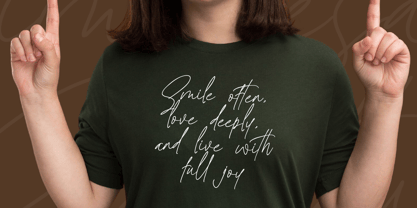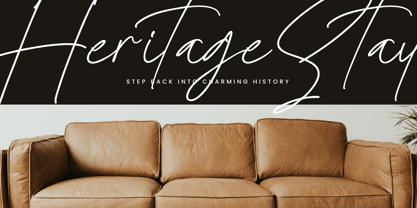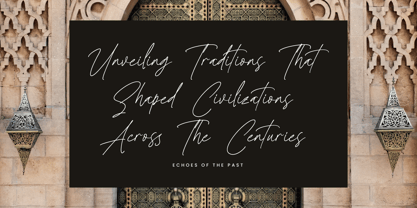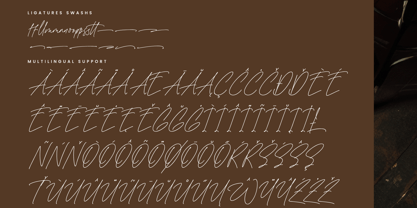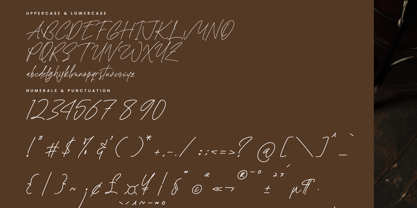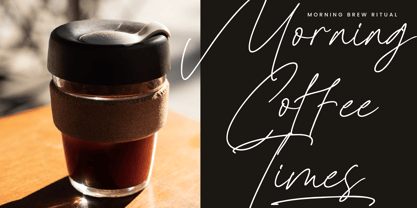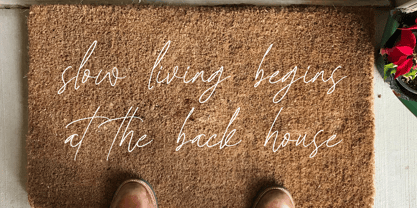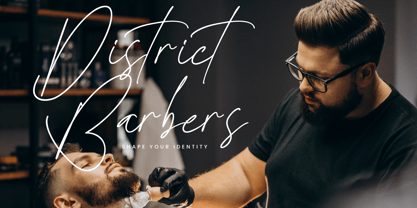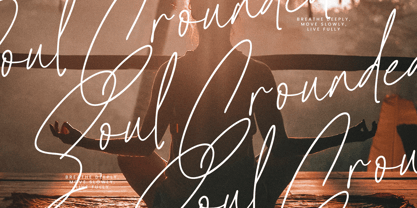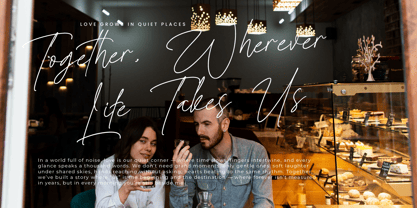
Kimothyes Sigmaboy
by Integritype
The Kimothyes Sigmaboy Font Family was designed by Ranndy Rizky Febrian and published by Integritype. Kimothyes Sigmaboy contains 2 styles and family package options.
Kimothyes Sigmaboy - A Modern Signature Regular & Italic, from Integritype Studio, perfect for any project like: logos, branding projects, homewares designs, product packaging, mugs, quotes, posters, shopping bags, t-shirts, covers books, business cards, invitation cards, greeting cards, labels, photography, watermarks, special events and all your other luxury projects that require a premium taste.